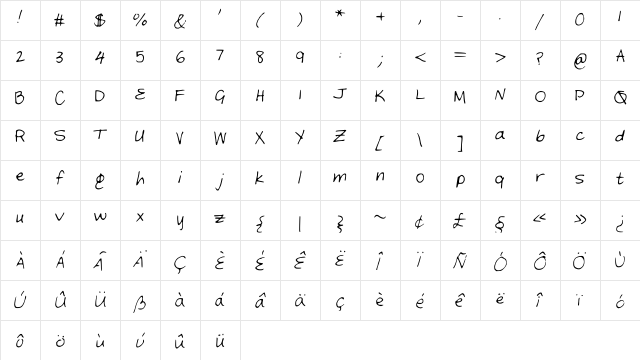
Rachel Medium
Rachel Family
Rachel Medium
Design Context for Rachel
Rachel is a composed and adaptable typeface that performs quietly and consistently across a wide range of design contexts.